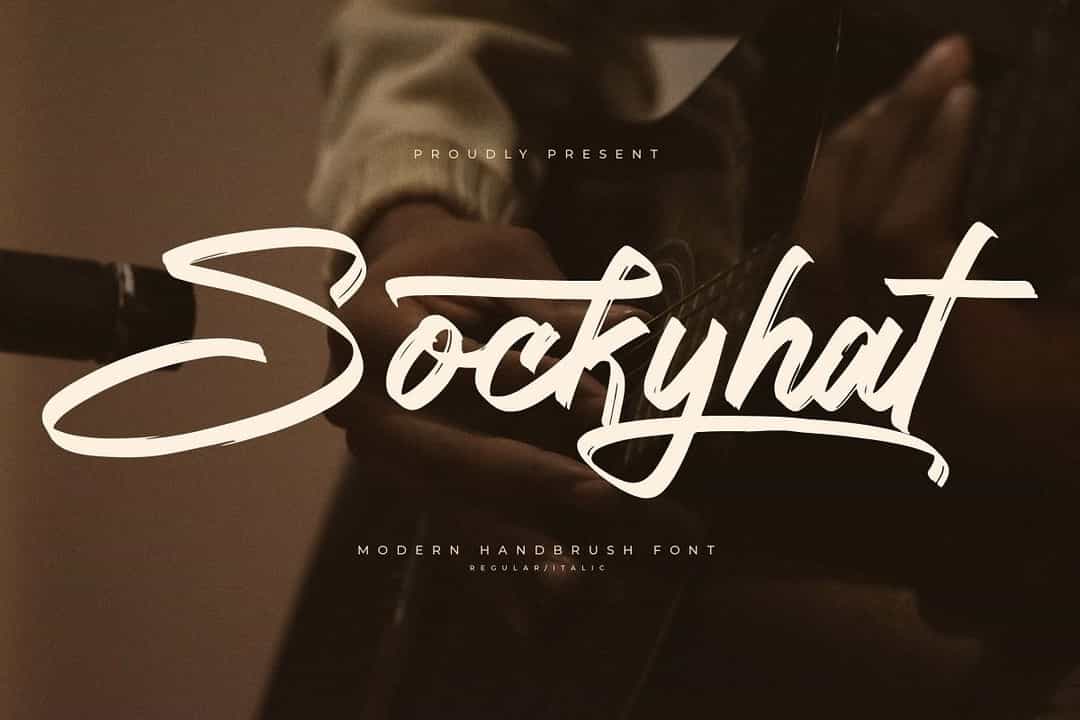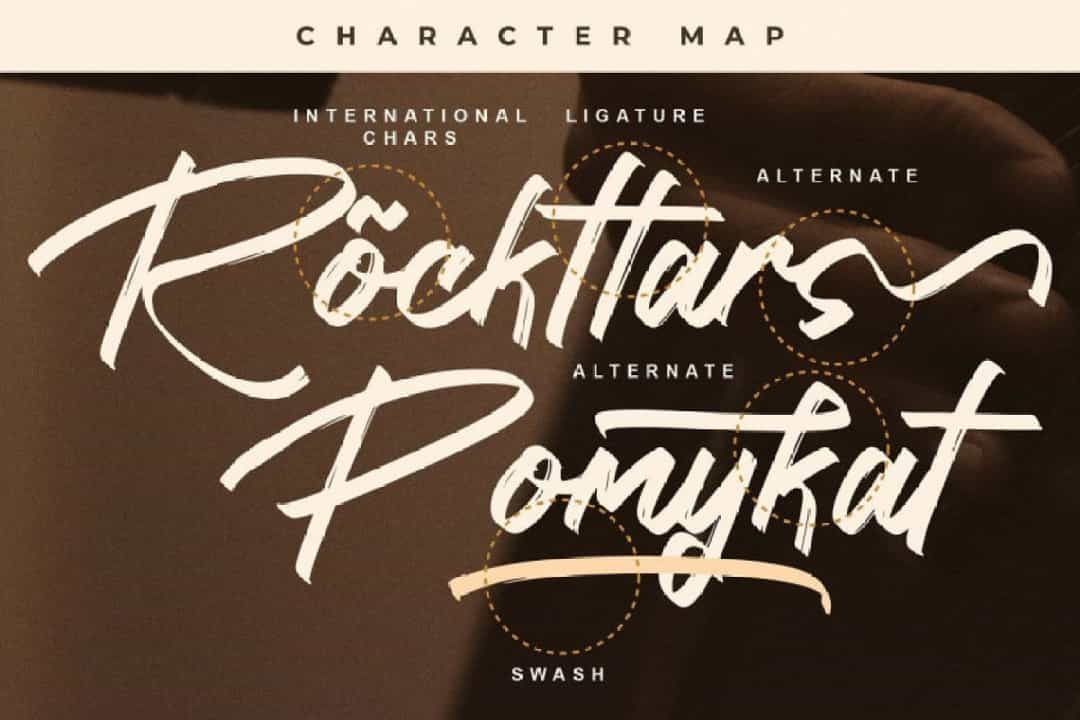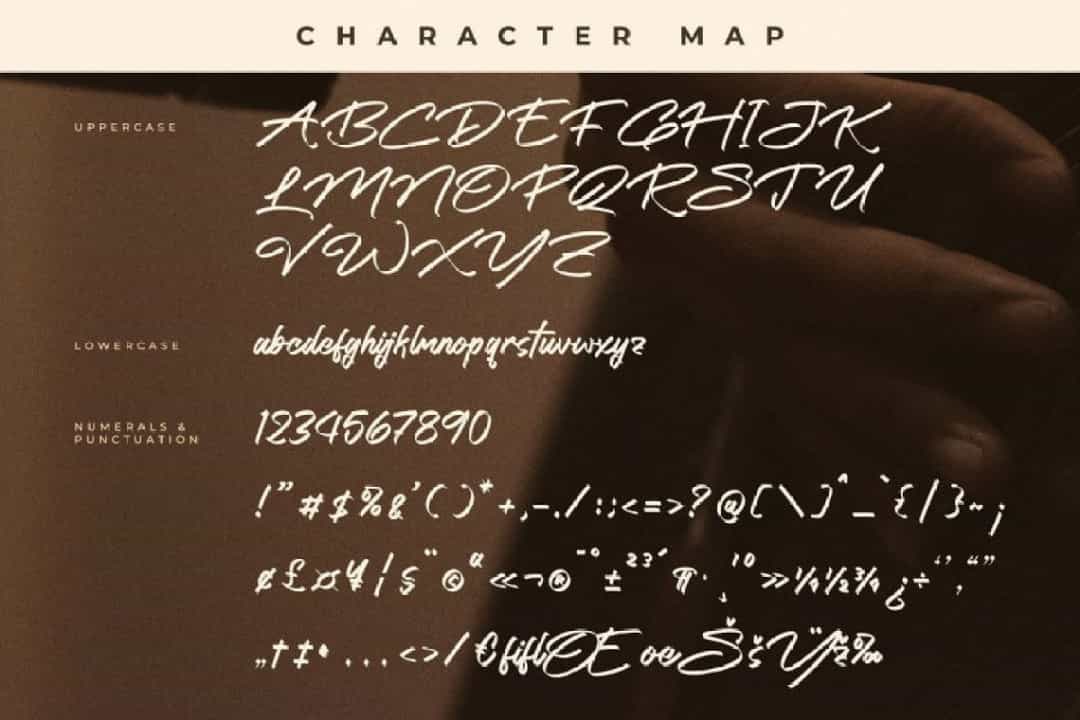
Discover Sockyhat Font, part of the Brush collection—a versatile and unique font perfect for adding a personal touch to your projects. Download it for free and enjoy crafting designs with style, from invitations to social media posts. This font is available exclusively for personal use, giving you the freedom to create without limits. Unlock your creativity with Sockyhat Font today!
Sockyhat Modern Handbrush script Font from Letterena can be used for various projects, such as logos, branding designs, homeware packaging for products such as mugs or quotes bags with posters, book covers, quotes bags, posters, book covers names greeting cards invitation cards labels, watermarks photography special events photography projects with luxurious serif styles among many more projects requiring luxurious serif styles.